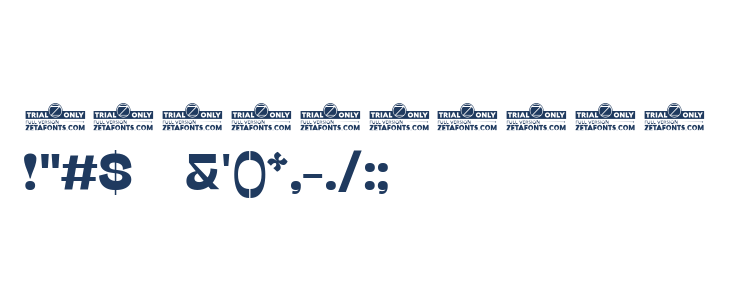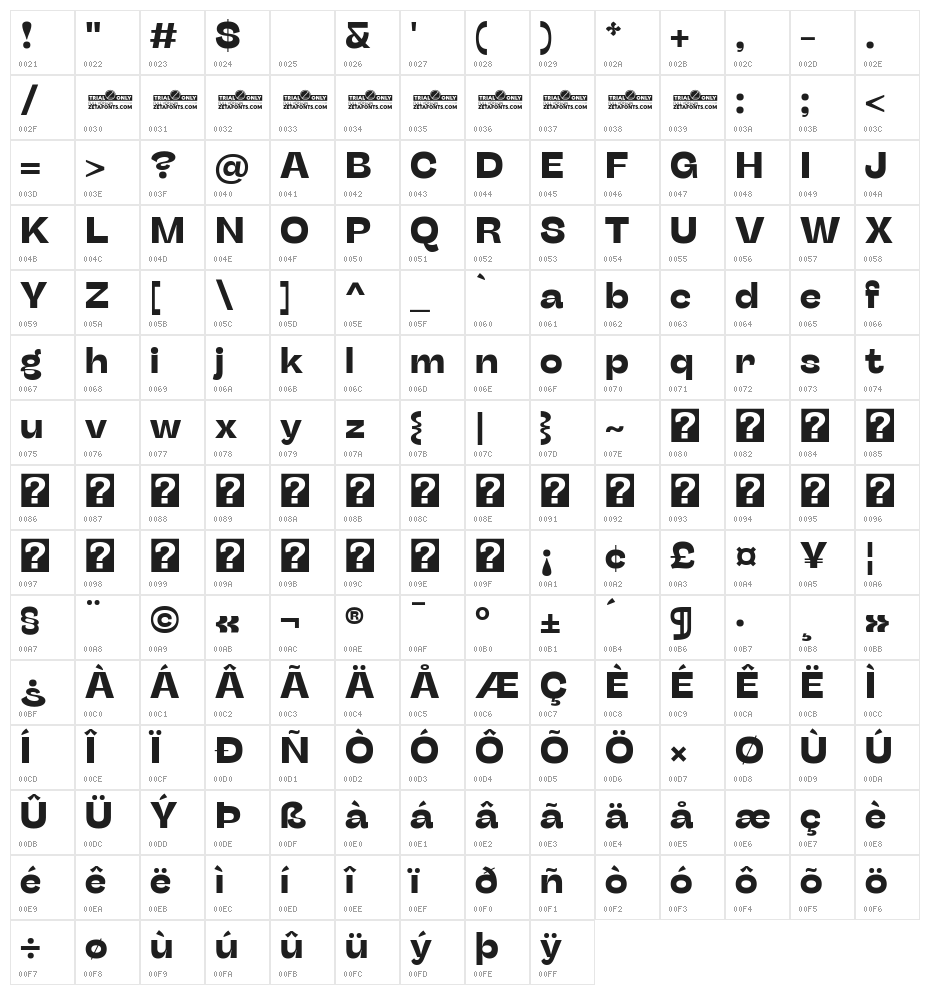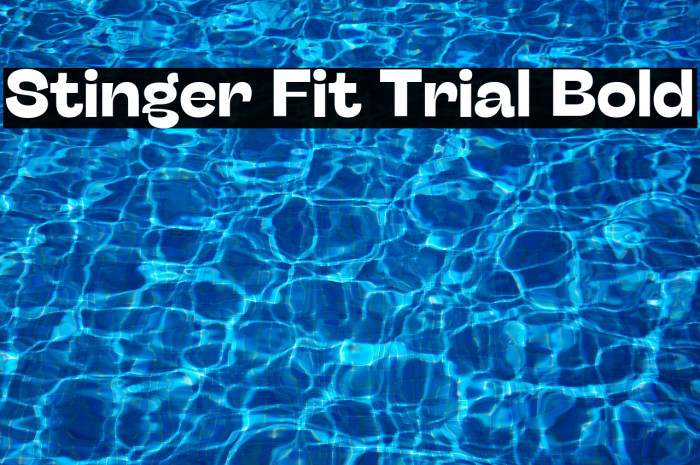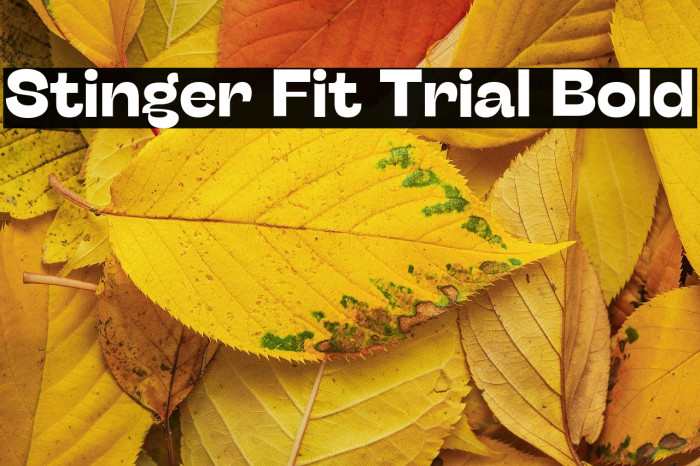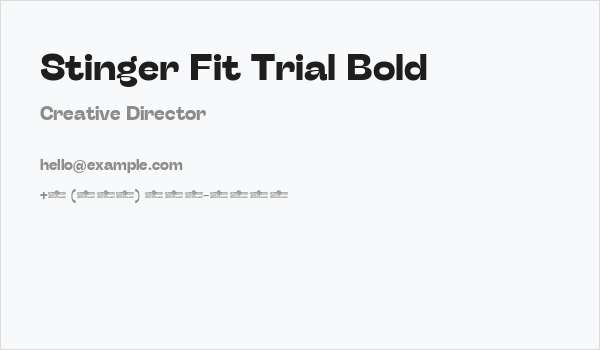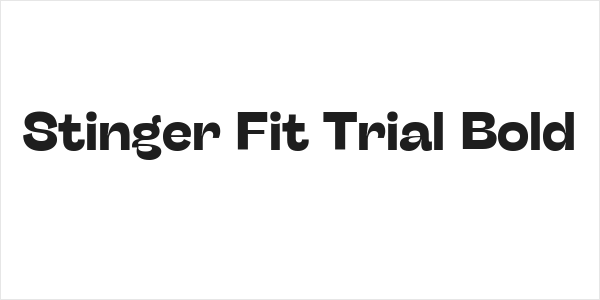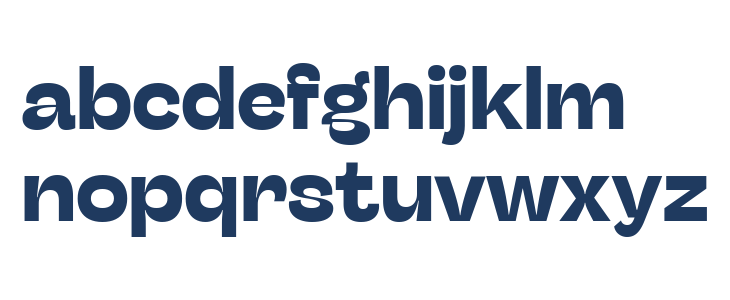
Stinger Fit Trial Bold Font
Stinger Fit Trial Bold Description
This font features a bold, modern design with clean lines and a strong presence. The uppercase and lowercase letters are well-proportioned, offering a sense of balance and uniformity. The characters are wide and have a substantial weight, making them ideal for impactful headlines. The numerals and special characters maintain the same boldness, ensuring consistency across all text elements. The overall style is contemporary, with a slight geometric influence that adds to its versatility.
| Proposed Projects | Ideal for branding, advertising, and editorial design projects where a strong, modern typeface is needed. |